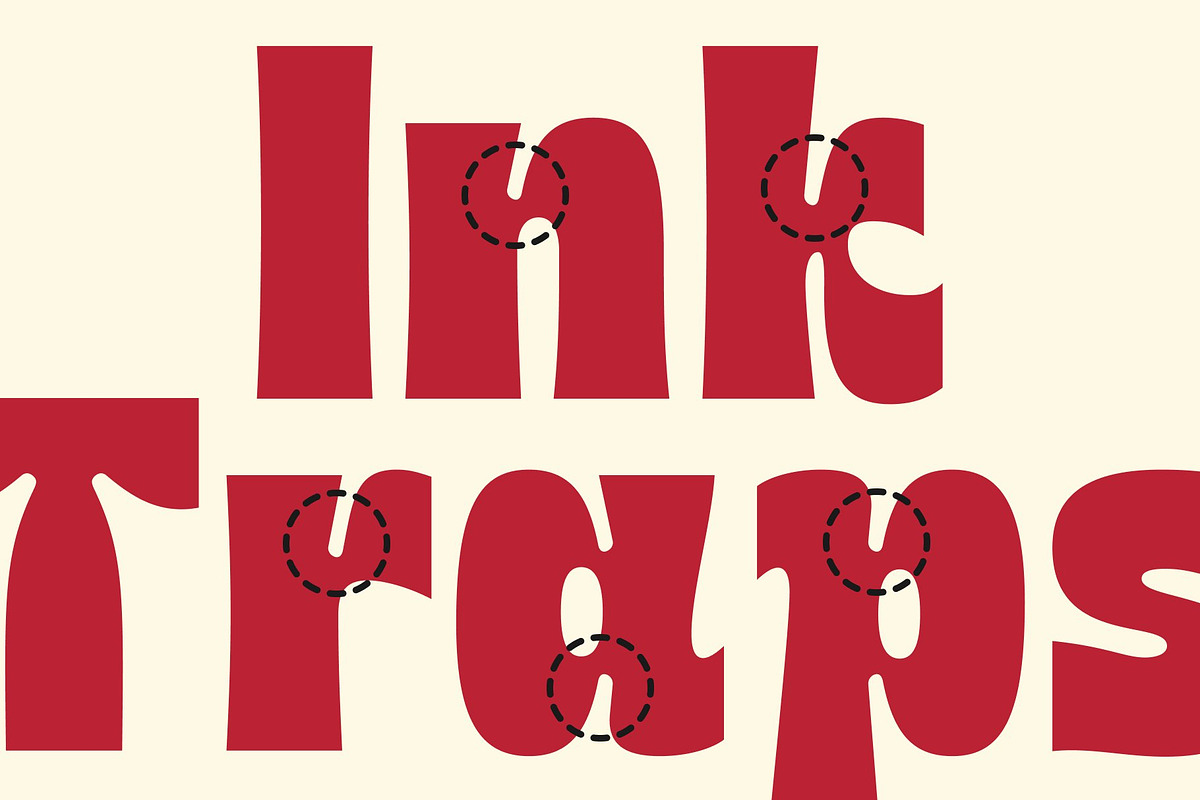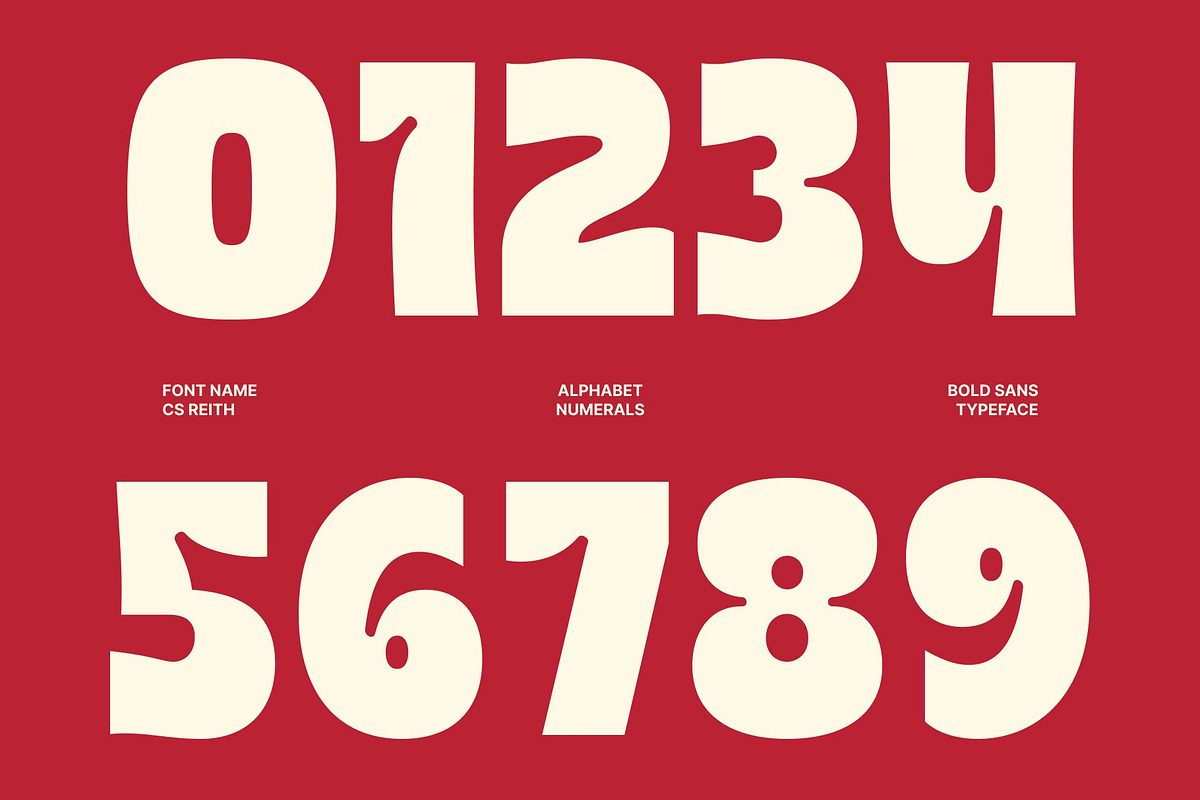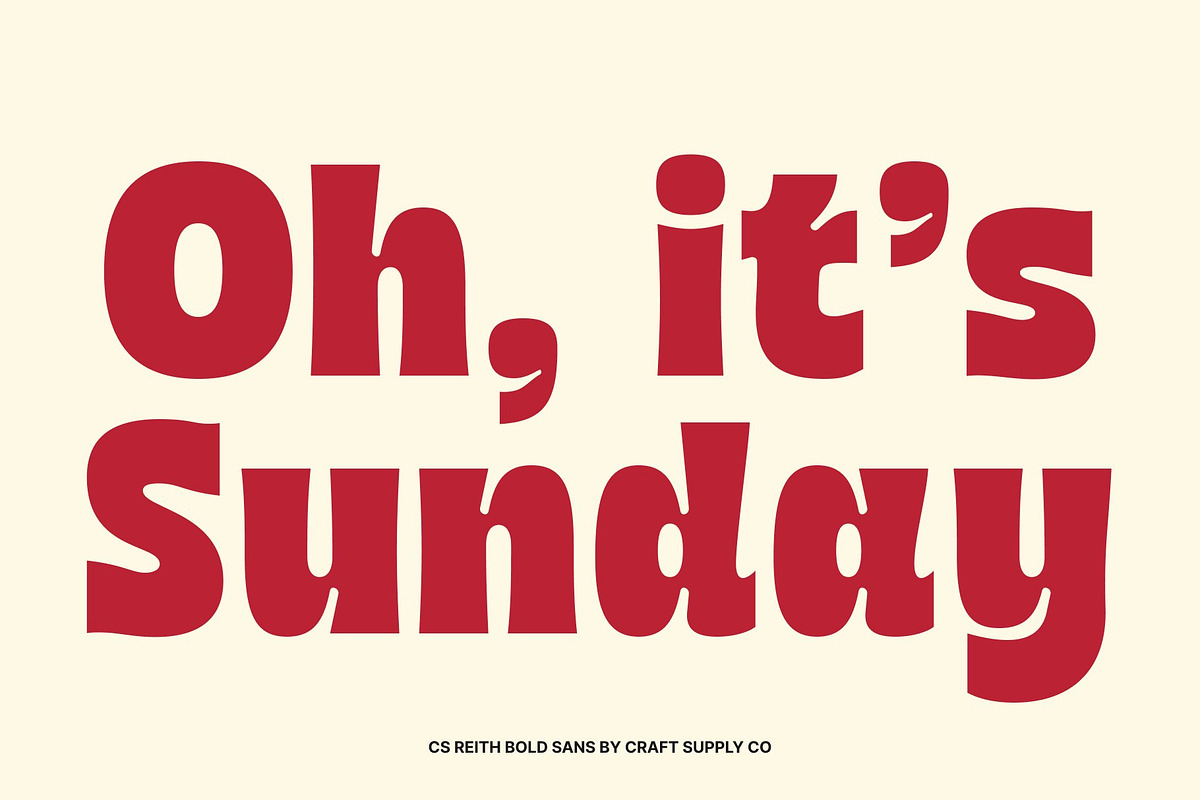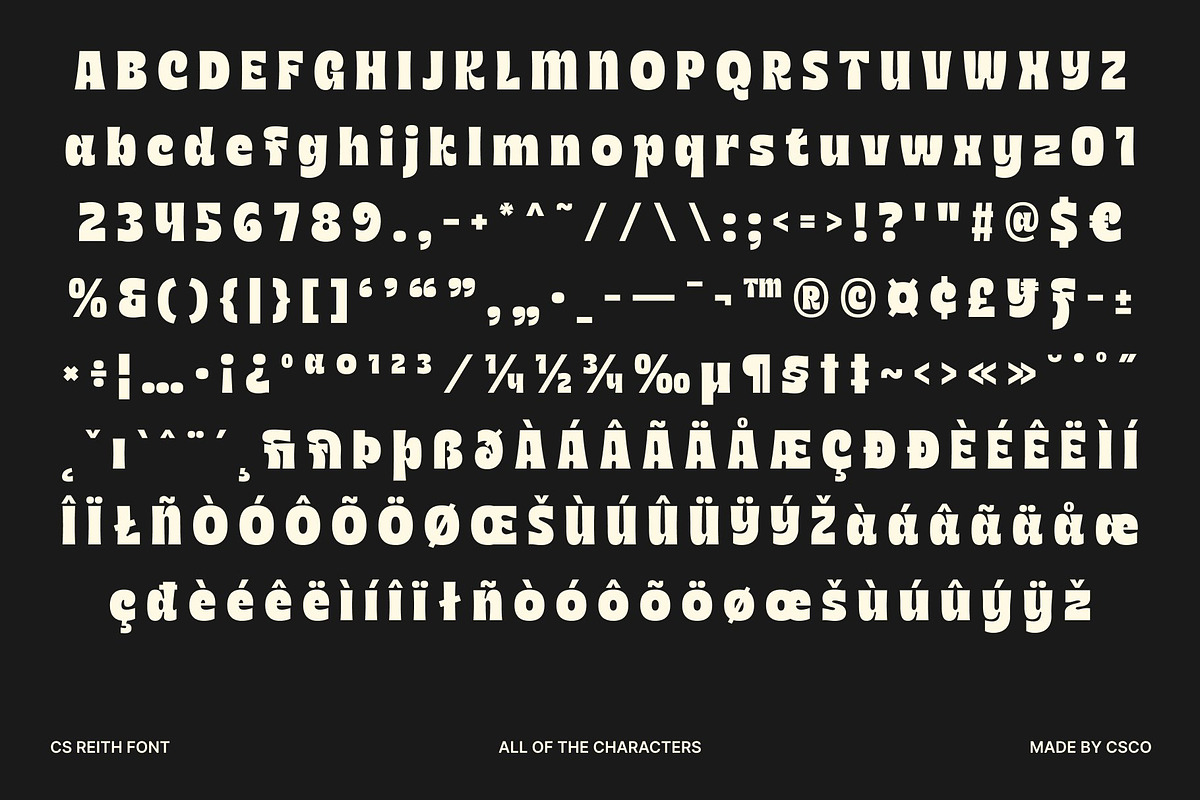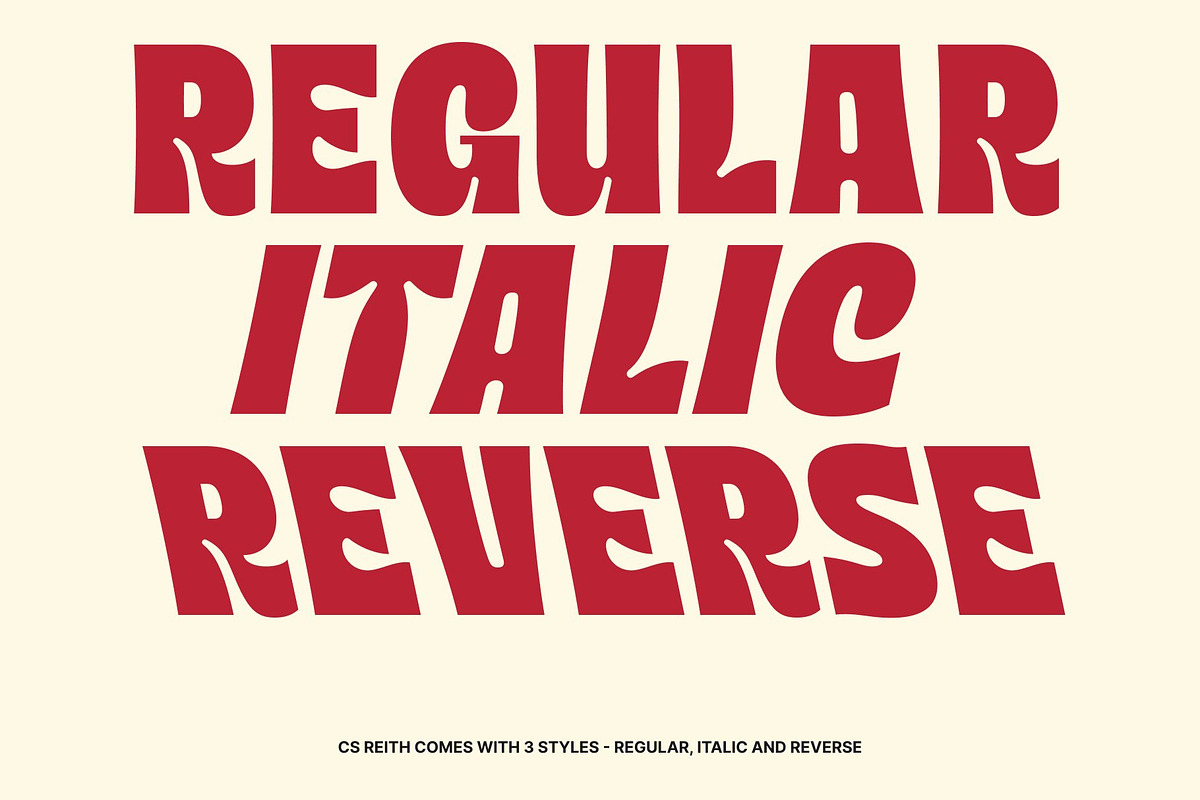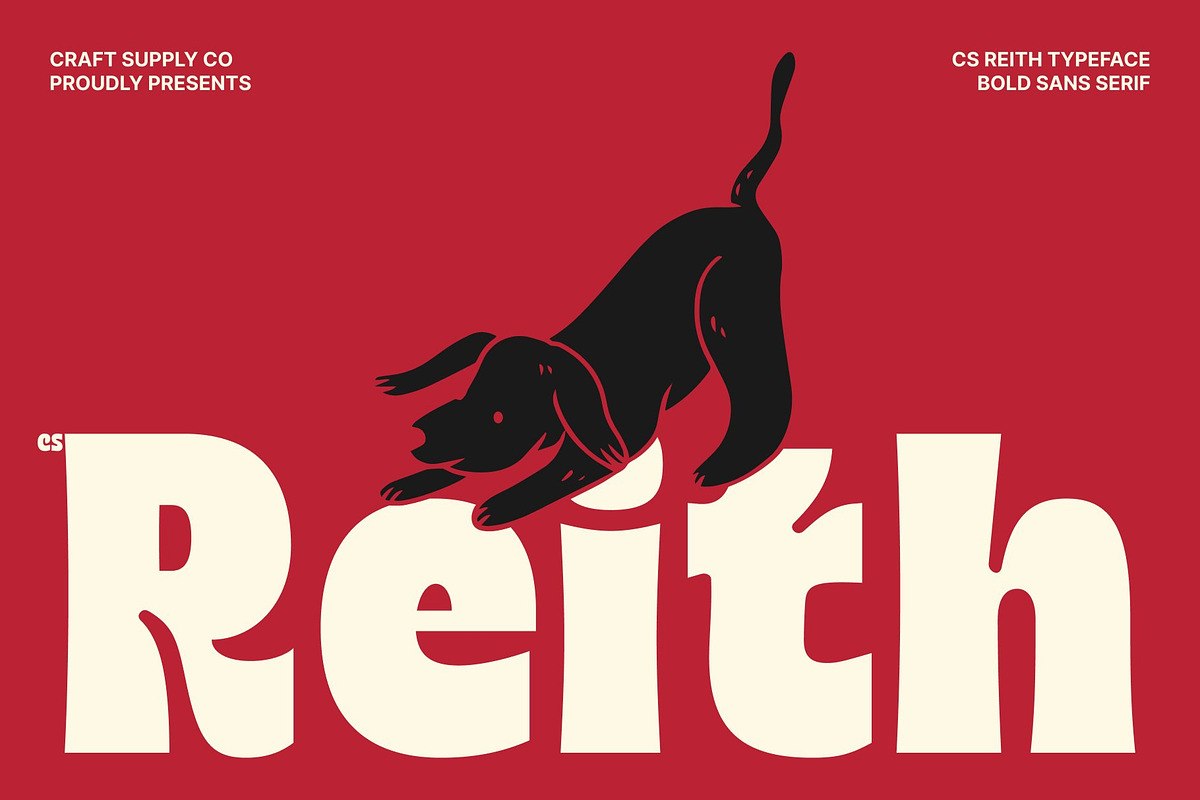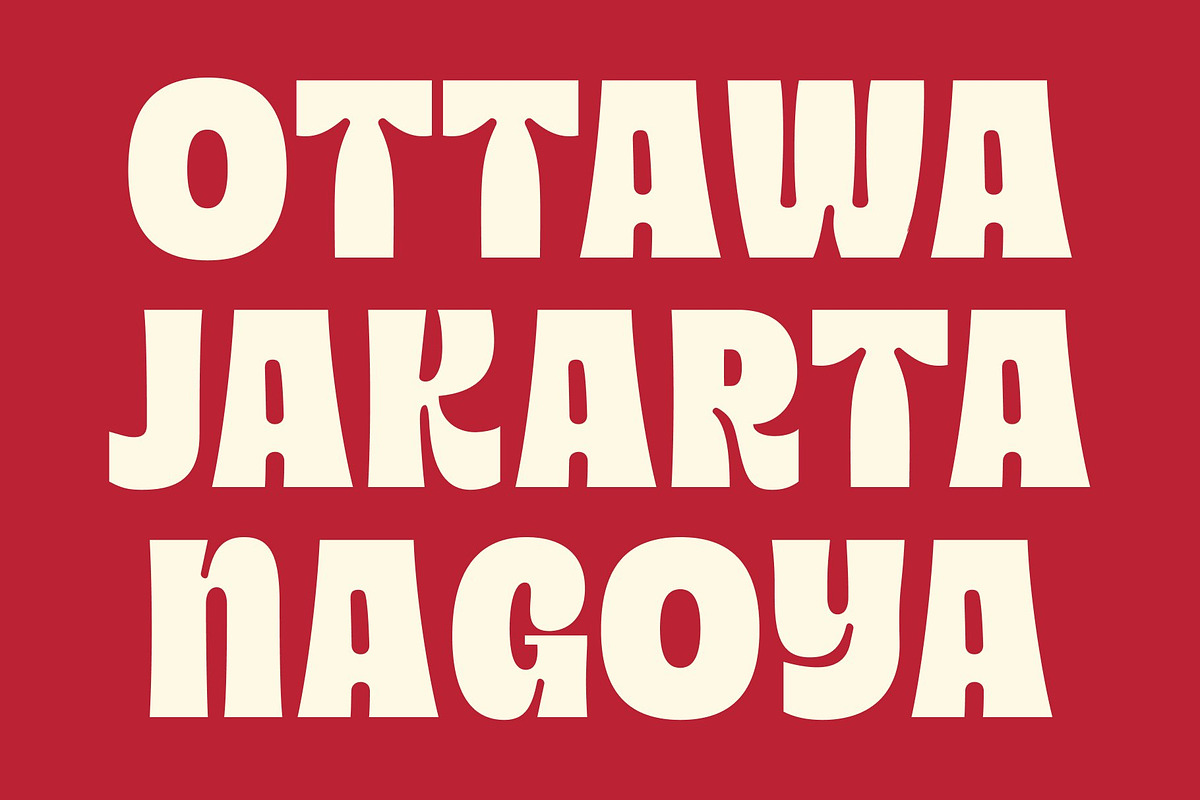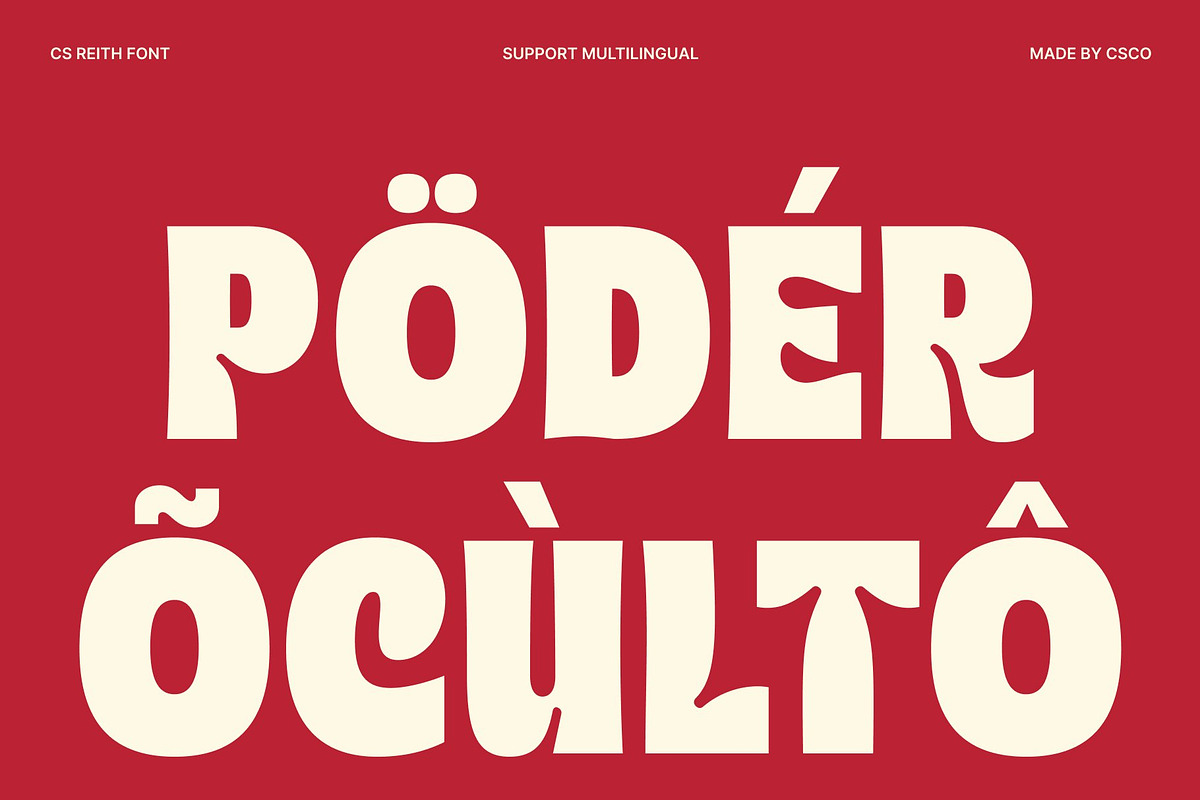
CS Reith – Bold Sans Serif
CS Reith – Bold Sans Serif with Playful Inktrap Style
Bold Sans Serif with Energetic Personality This font is a bold sans serif font designed to bring strength, creativity, and character into modern typography. Featuring playful letterforms and distinctive inktrap details, this typeface creates a lively visual presence that feels both contemporary and expressive. It is crafted for designers who want typography that stands out with confidence while maintaining a fun and approachable appeal.
Distinctive Inktrap Details with Modern Character The defining feature of this font lies in its carefully crafted inktrap details. These functional-inspired cuts add depth and uniqueness to each letterform, creating a visually engaging texture that enhances the font’s personality. The result is a typeface that feels modern, sharp, and instantly recognizable.
Playful Design with Bold Impact This font balances bold construction with playful design elements, resulting in typography that is both powerful and inviting. Its strong strokes ensure excellent visibility, while its expressive shapes introduce a sense of movement and creativity. This combination gives the font a dynamic and memorable character that performs exceptionally well in display settings.
Perfect for Displays, Posters, Branding, and Titles From eye-catching displays and bold posters to branding systems and impactful titles, this font offers a versatile typographic solution. Its combination of bold sans serif structure, playful styling, and detailed inktrap features ensures your designs feel distinctive, energetic, and visually compelling.
CS Reith Regular
CS Reith Italic
CS Reith Reverse Italic